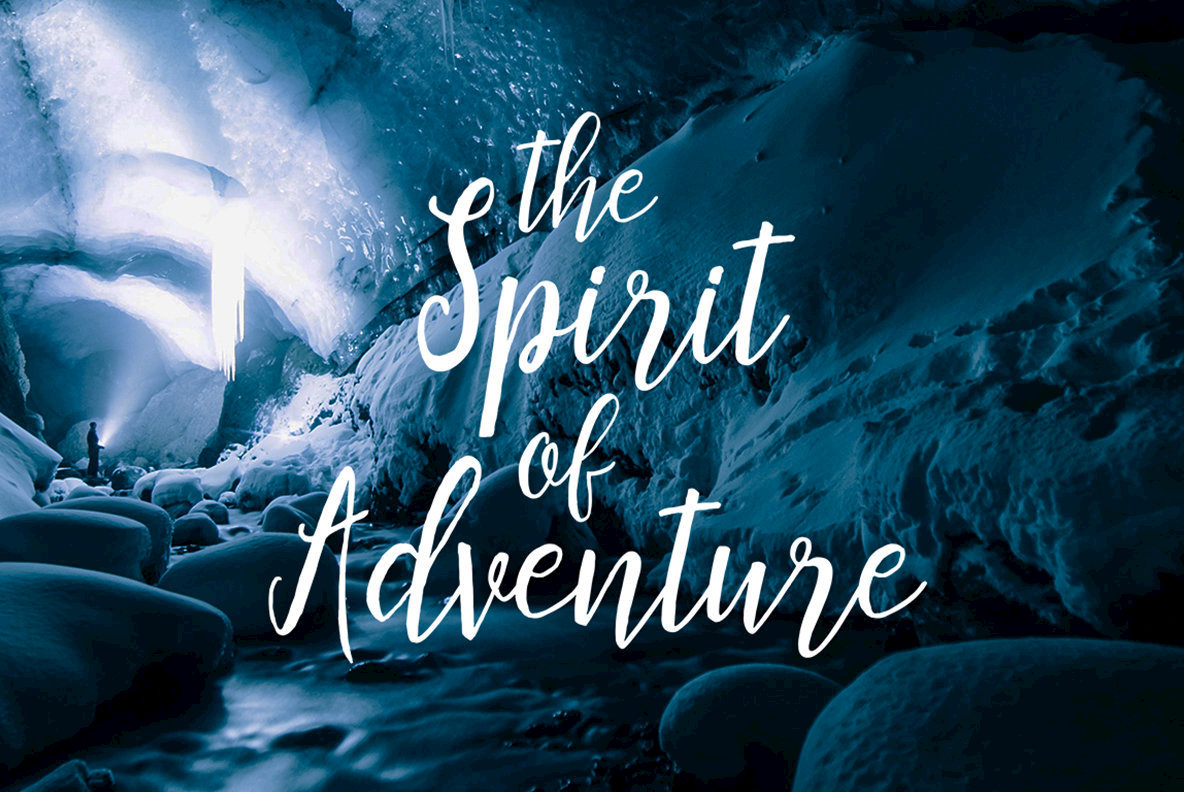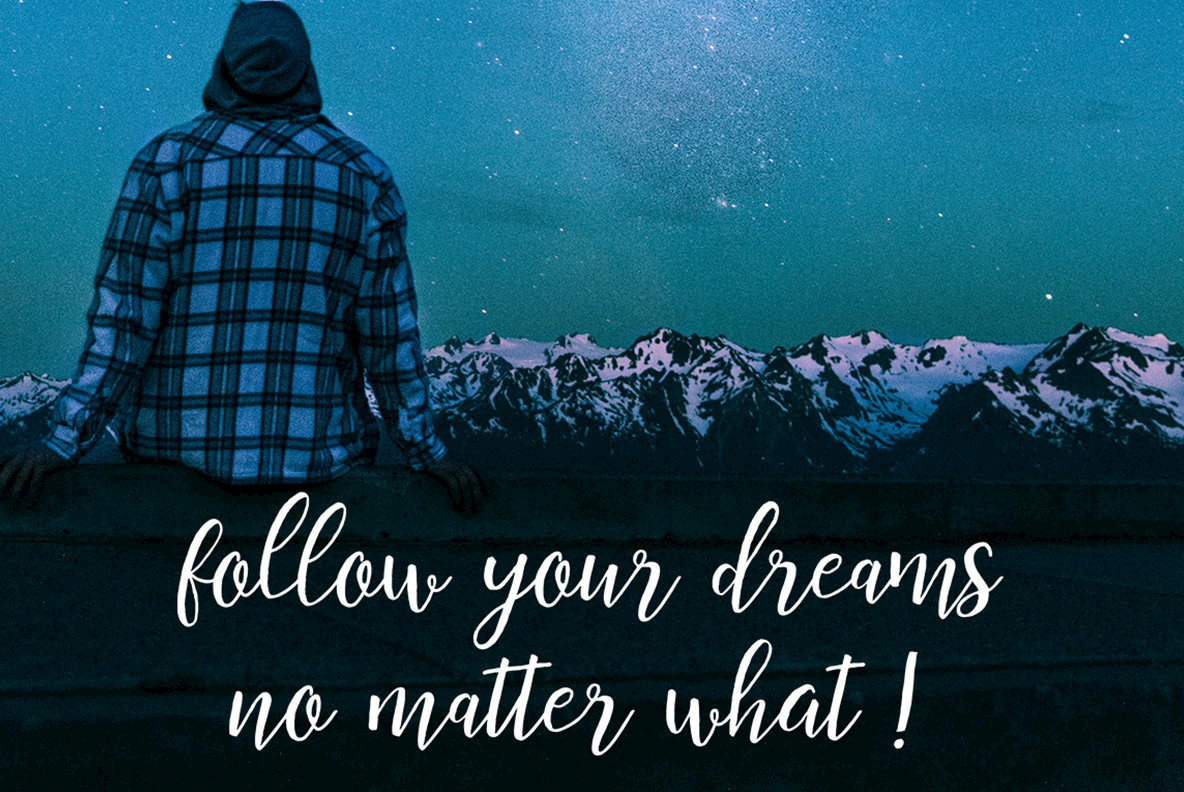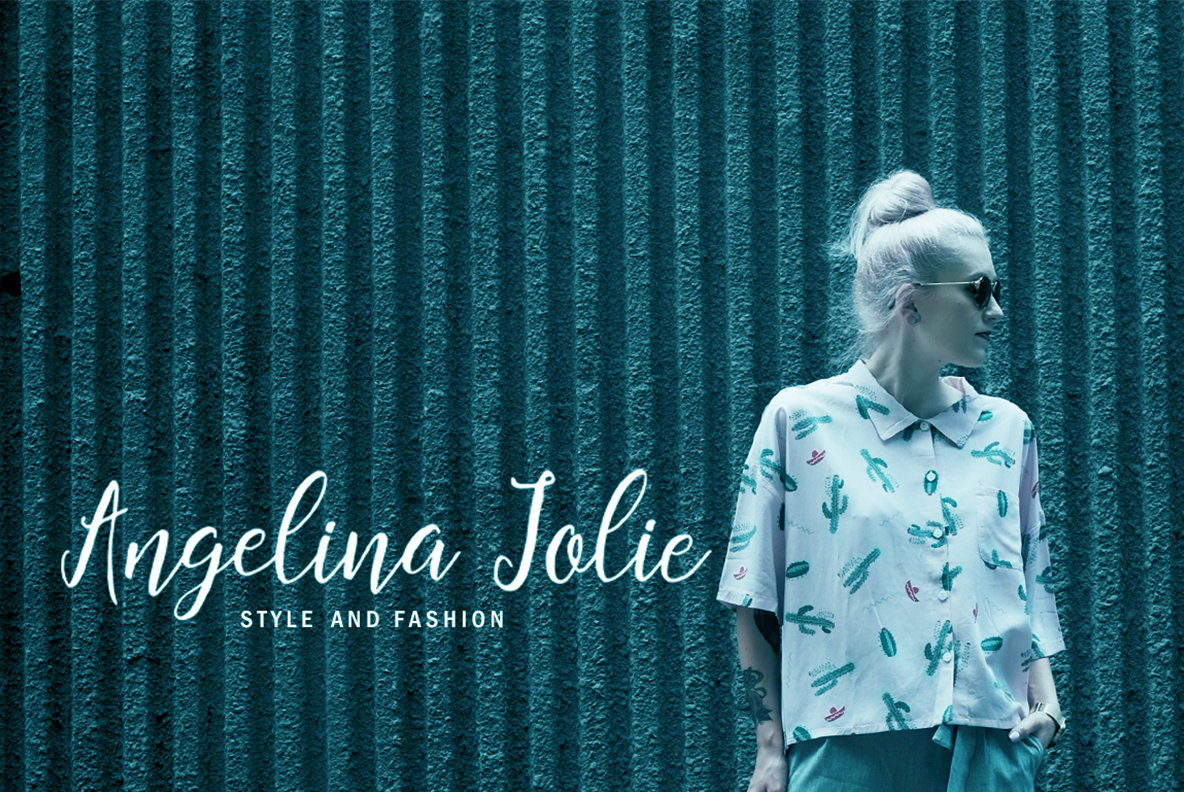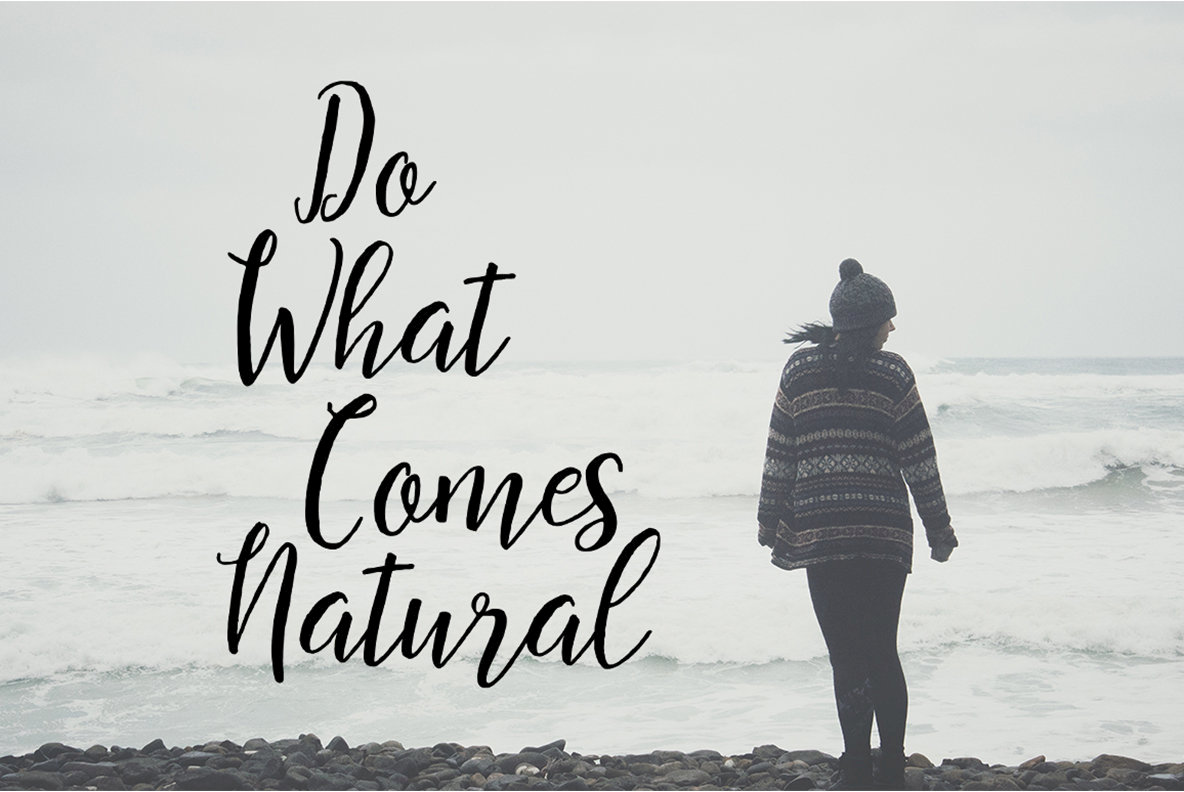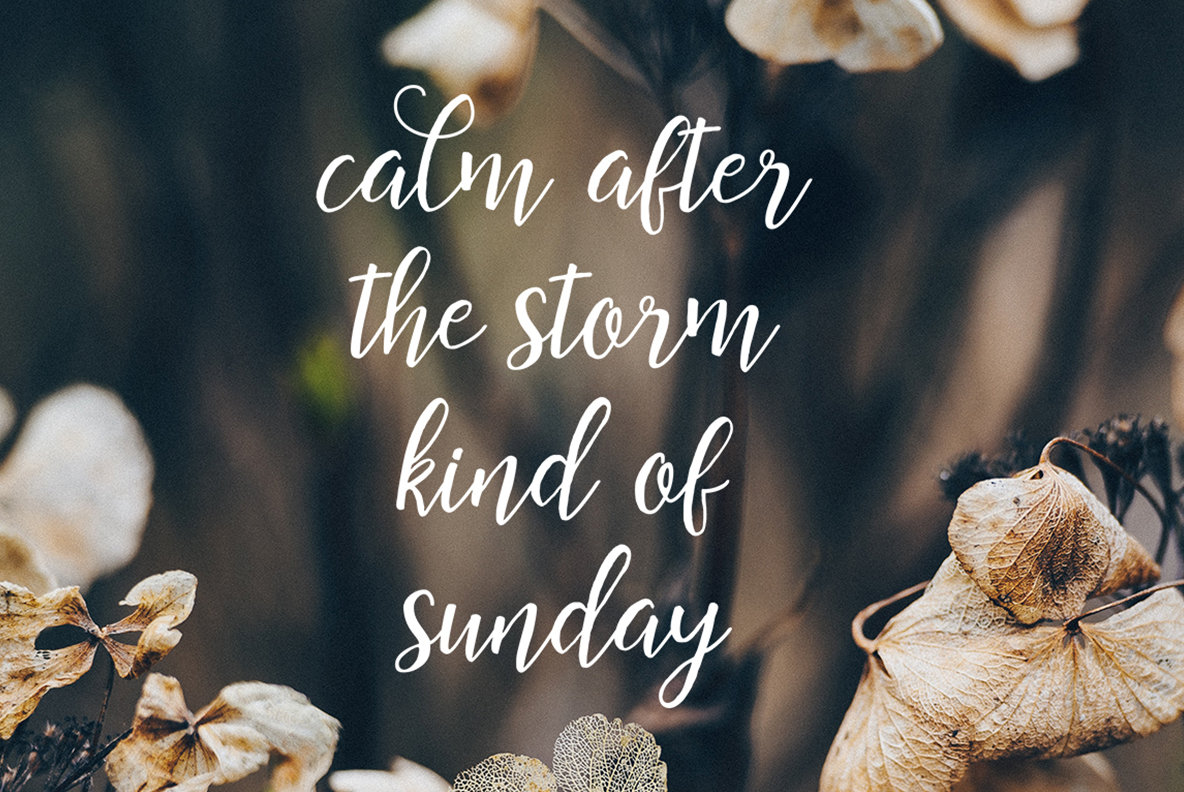
Restful Script Font
Restful Script Regular
Capture the essence of spontaneity and energy with Restful Script, a modern font that breathes life into every design. Seamlessly combining organic and dynamic aesthetics, this typeface proves versatile for a wide range of applications. From crafting impactful logos and titles to embellishing letterheads and wedding invitations, Restful Script adapts with ease.Restful Script: An Energetic and Organic Typeface
Explore the possibilities with Restful Script, a font that speaks to the heart of creative projects.